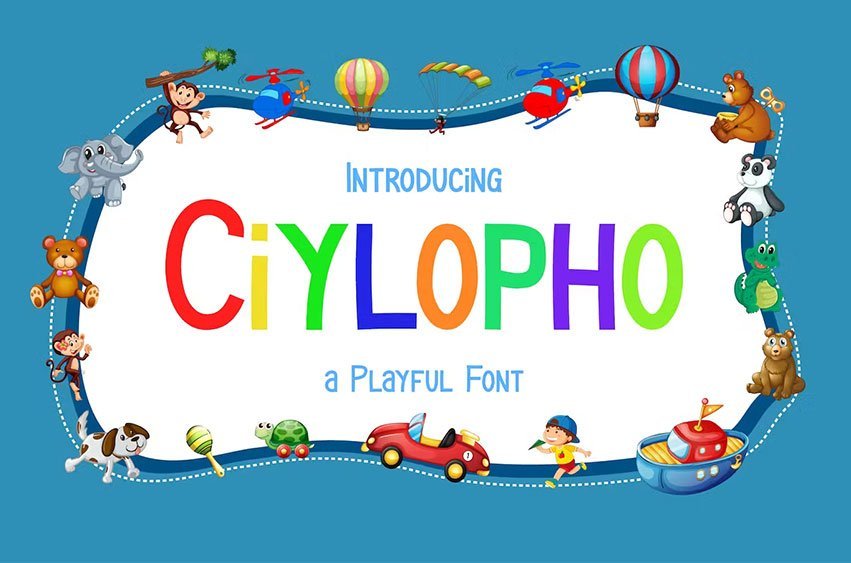
Ciylopho Playful Font is made from a musical instrument commonly used by small children when playing, this instrument inspired designers to make it. With a strong and assertive character, this font is quite attractive to small children. You can also use it on book covers, children’s posters, to movies.